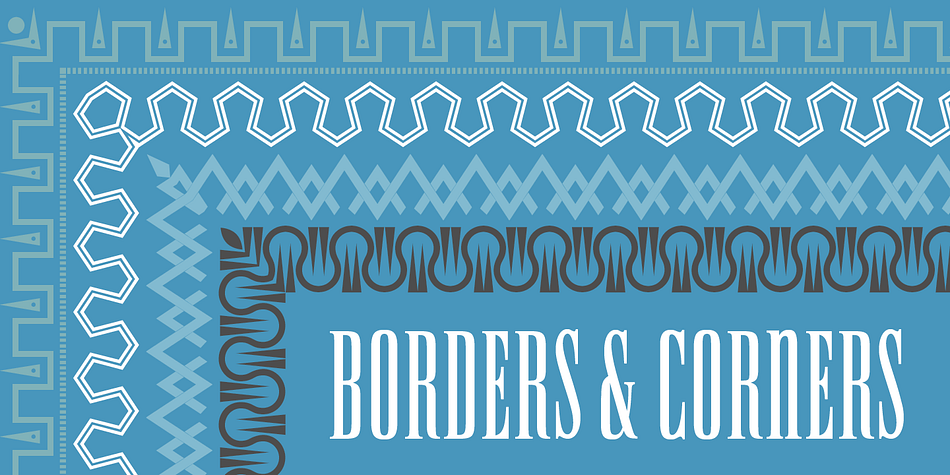
LTC Keystone Ornaments
LTC Keystone Ornaments is a dingbat font published by P22 Type Foundry.
LTC Keystone Ornaments is a set of over 100 glyphs based on “running border” ornaments from Keystone Type Foundry of Philadelphia, circa 1903.
These geometric dingbats can be used individually for decorative emphasis, or combined in repetitive lines or complex patterns.